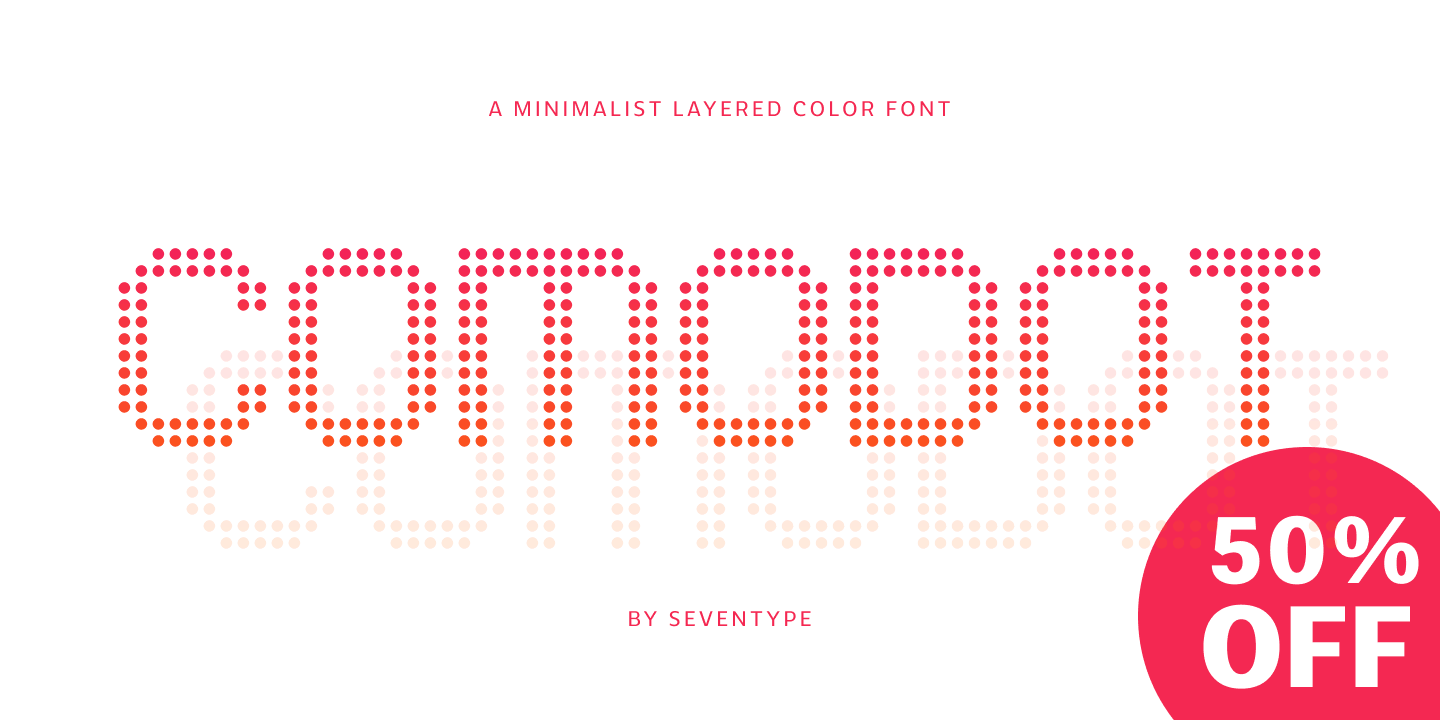
Designed by Vitória Neves, Comodot is a pixel font family. This typeface has four styles and was published by SevenType.
Comodot is a minimalist layered font family with a pixelated yet sophisticated look.
You can either use the top layer or top and bottom layer together to create a shadowed effect. The price of buying a single or the family is just the same so while you’re at it why not get the whole family?
Comodot supports most Latin languages. It also comes with arrows and even some fun dingbats!
This font is great for display purposes or even logos. Use it for headlines, posters, magazines, book covers, just anything that needs to stand out.
| Designer | Vitória Neves |